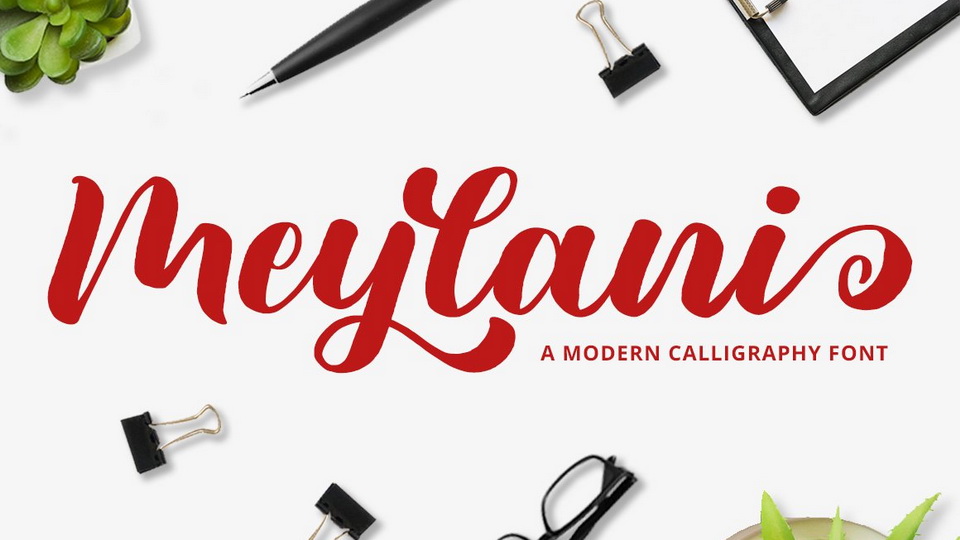
Download Meylani font, a modern calligraphy script that feels equally charming and elegant. Meylani looks stunning on wedding invitations, thank you cards, quotes, greeting cards,